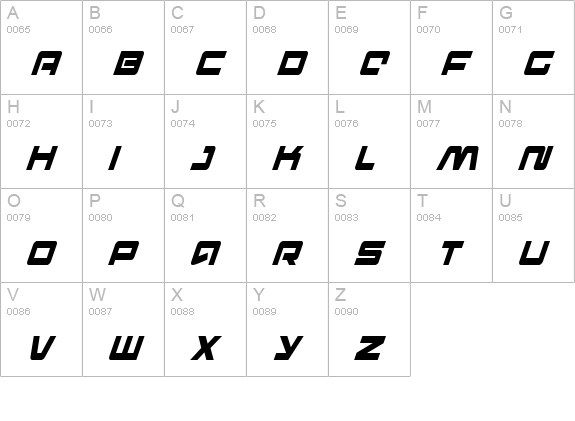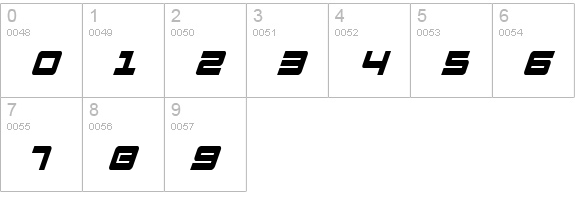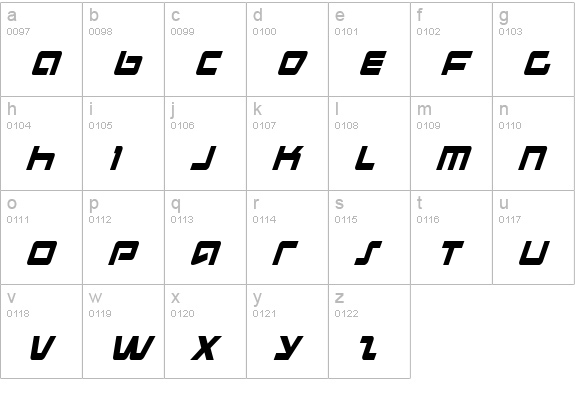
Pulse Rifle Condensed Italic is a distinctive, condensed-width, italic variant in the Pulse typeface family \xE2\x80\x94 well suited to design and typography projects.
Pulse Rifle Condensed Italic font is a sleek and modern typeface designed to bring a futuristic edge to your projects. With its sharp angles and stylish curves, this font is perfect for conveying a sense of innovation and technology. The condensed italic style adds a dynamic touch to any text, making it stand out with a bold and impactful presence. What sets Pulse Rifle Condensed Italic font apart is not only its striking design but also the fact that it is available for free download at FontsMarket.com. Whether you're working on a website, poster, or branding project, this font is a versatile choice that will elevate your design to the next level. Get your hands on Pulse Rifle Condensed Italic font today and let your creativity flow freely!